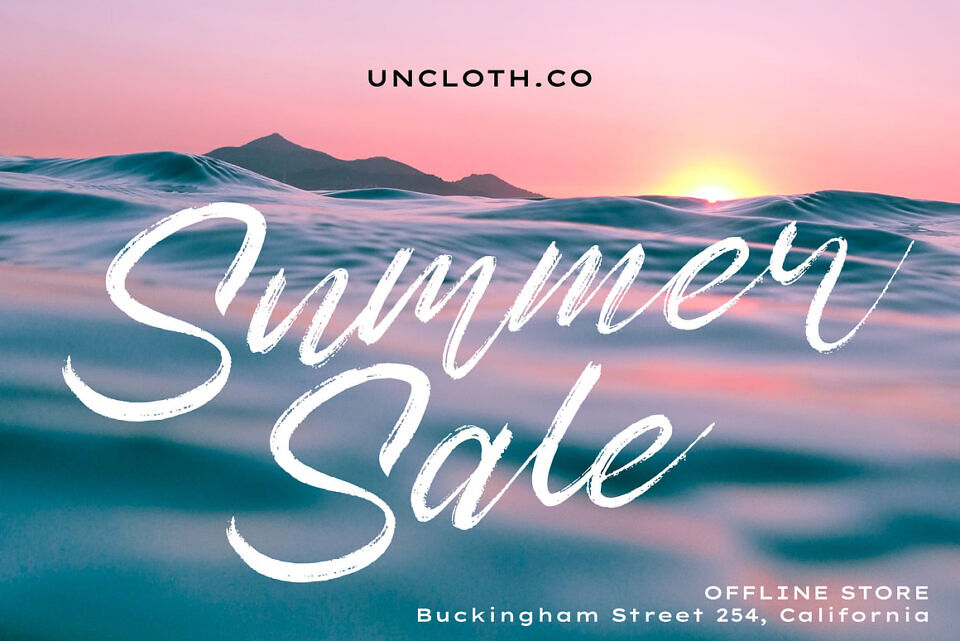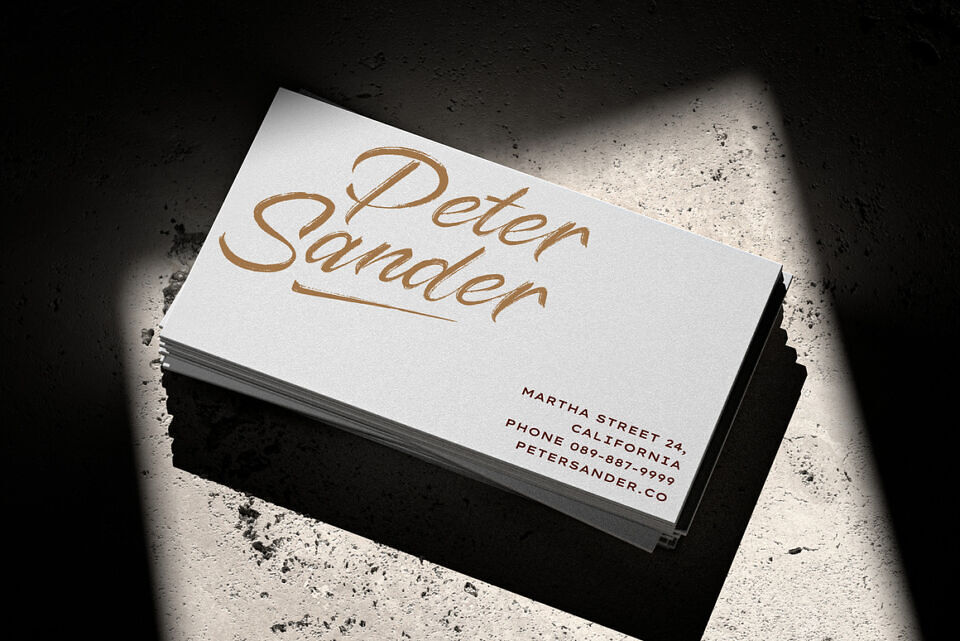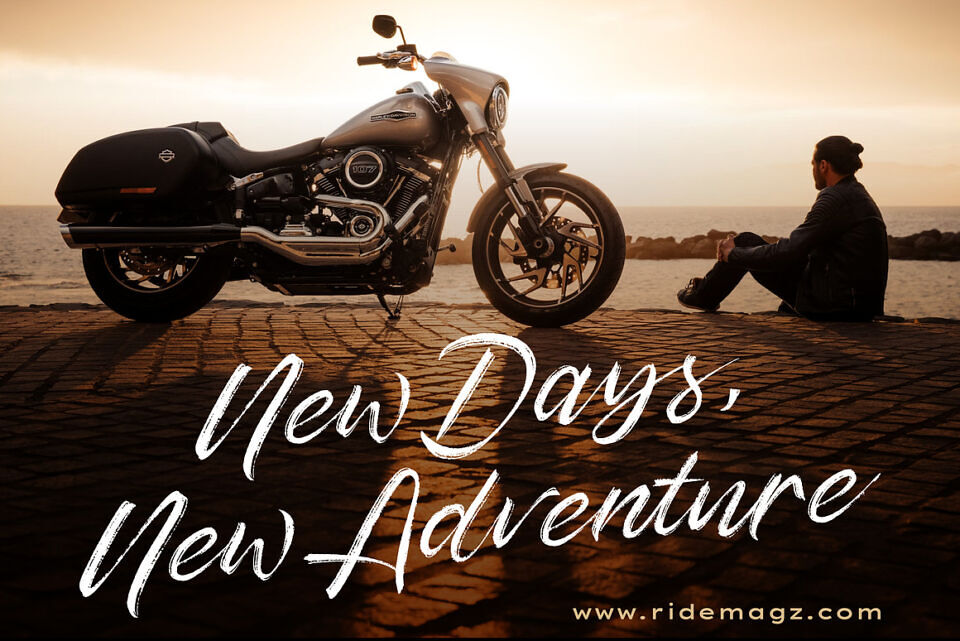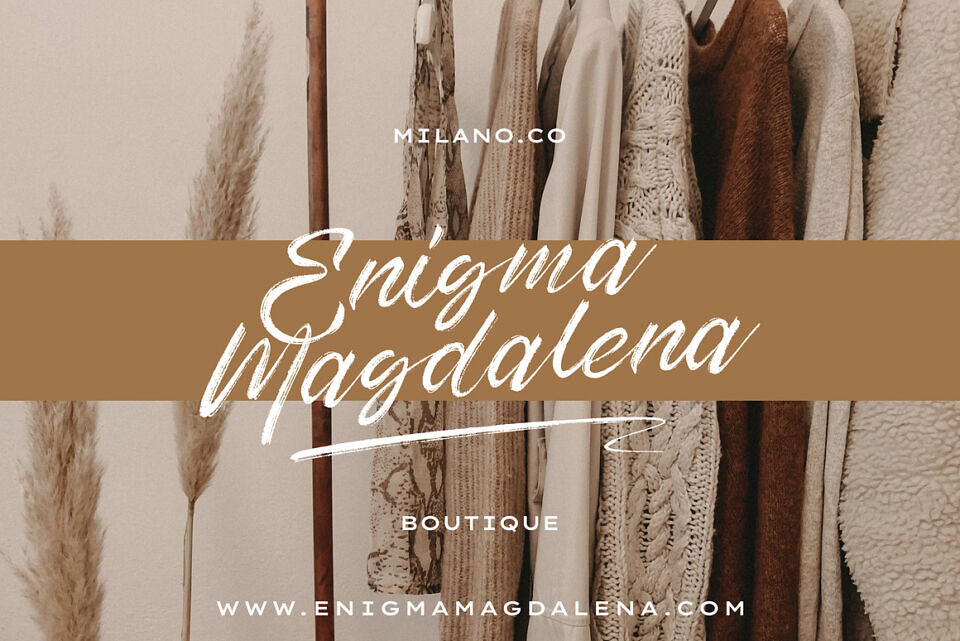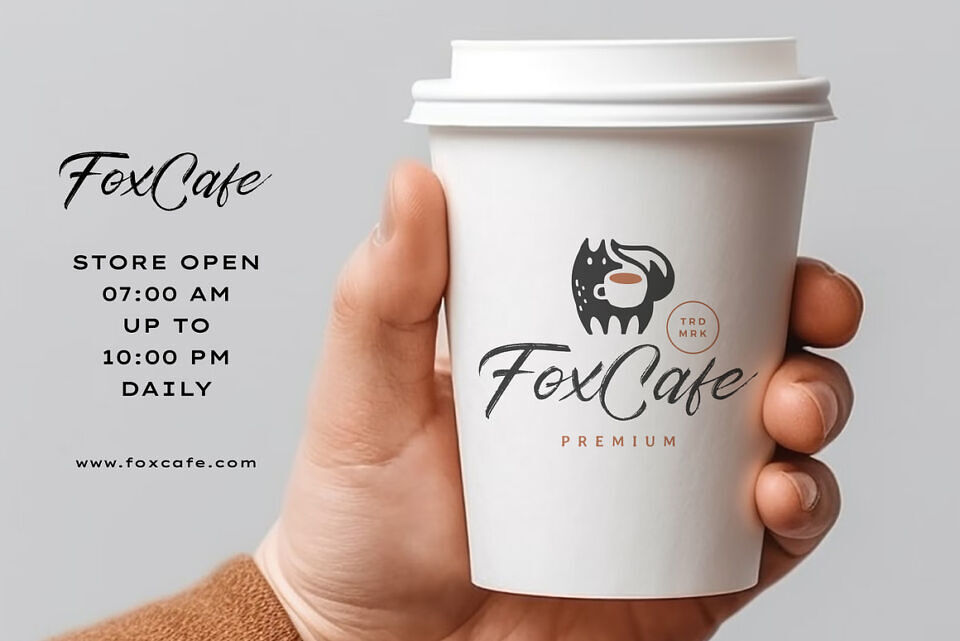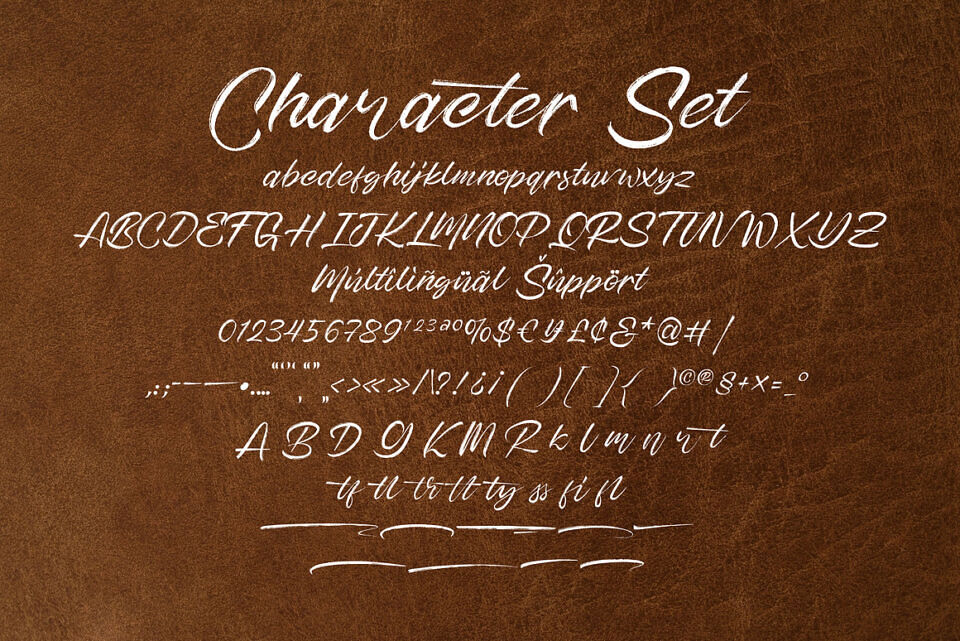
Rusted Strike is a Dry Brush Handwritten Script Font designed by Vstrd Typeworks.
Unleash bold creativity with Rusted Strike, a dynamic dry brush script font crafted from natural, hand-scanned brush strokes. Its raw, textured feel delivers an authentic handwritten touch, making it perfect for designs that demand energy and personality.
Whether you’re designing logos, signatures, video titles, product branding, quotes, printable templates, posters, flyers, t-shirts, or adding a striking overlay to images, Rusted Strike brings a handcrafted aesthetic that stands out.